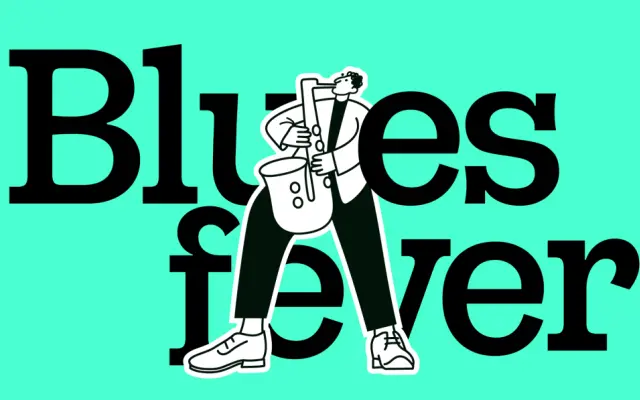
Gonzaga
Fontfabric · Kiril Zlatkov, Ivelina Martinova, Viktoria Usmanova · 2024
A Clarendon-derived slab-serif from Fontfabric designed for headline and editorial work, available in 18 static styles plus two variable fonts.
Built around the proportions and bracketed serifs of the Clarendon tradition, Gonzaga modernises the genre with an expressive ligature set, contextual alternates and expert Cyrillic support including Bulgarian local forms. The family spans nine weights from Thin to Black with matching italics, and two variable fonts cover the full range in a single file. Use cases lean toward poster design, packaging, album covers and magazine headers where a confident slab with personality is needed.
Fontfabric explicitly describe Gonzaga as a contemporary reinterpretation of the classic Clarendon slab-serif, with a bold, steady skeleton and strong editorial tone characteristic of the Clarendon/Egyptian tradition.